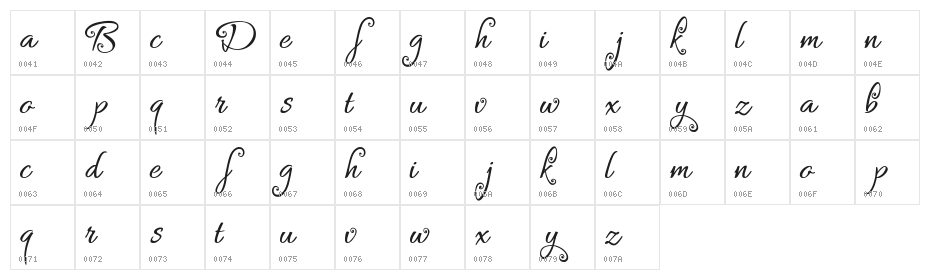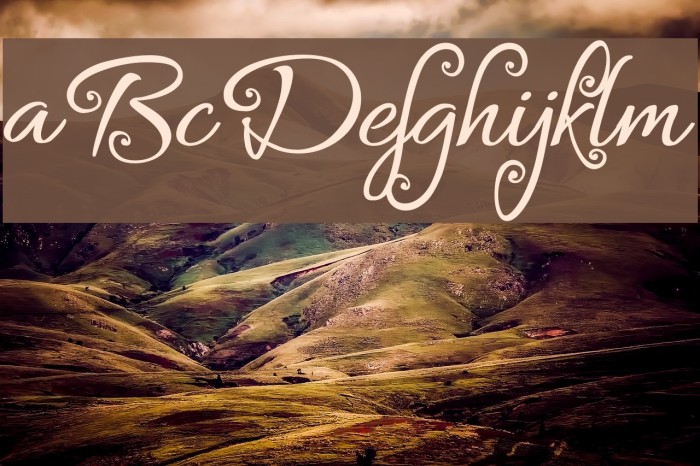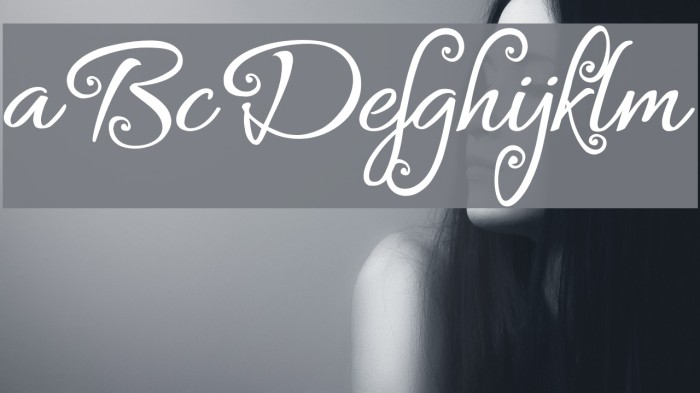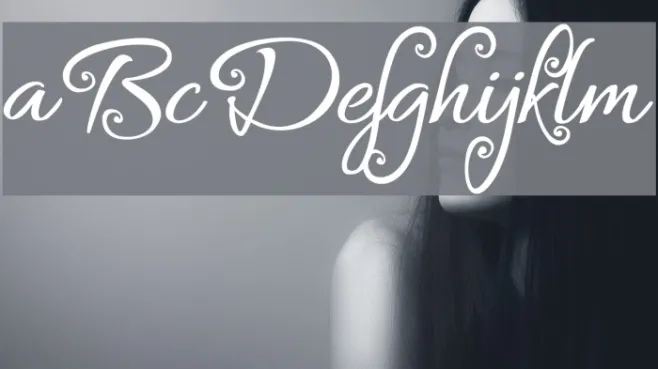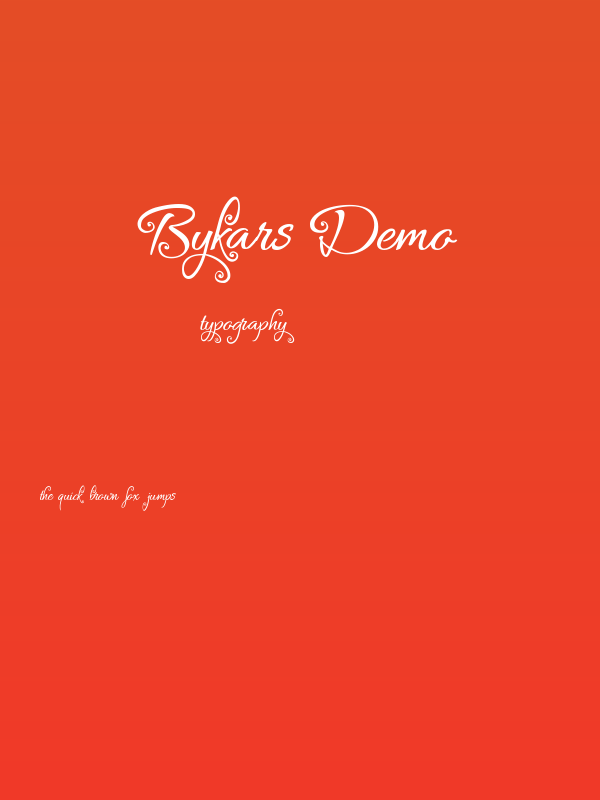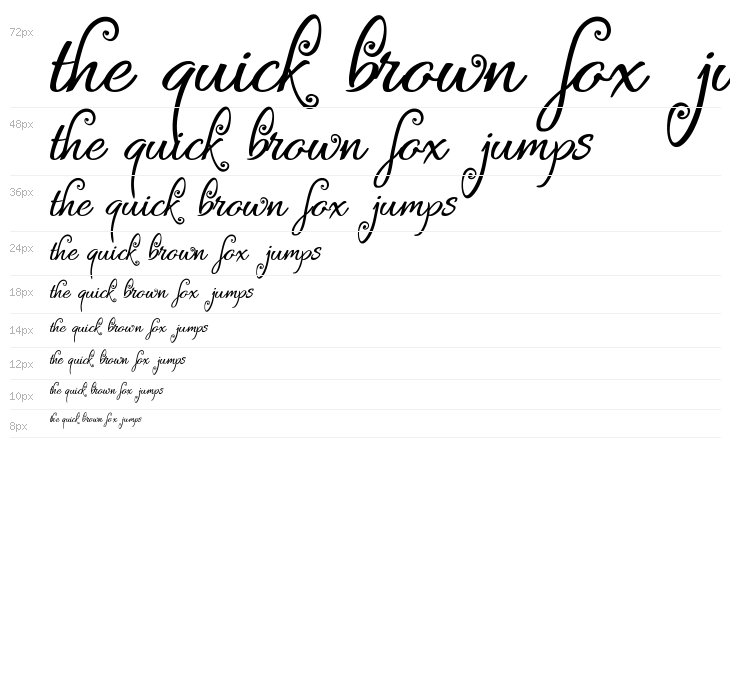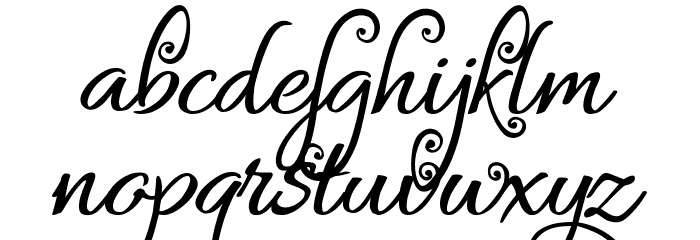
Bykars Demo Font
Bykars Demo Description
This font features an elegant and flowing script style, characterized by its ornate and decorative swirls. The uppercase letters are particularly elaborate, with intricate loops and flourishes that add a touch of sophistication and artistry. The lowercase letters maintain a consistent cursive style, providing a harmonious and fluid appearance. The font exudes a sense of elegance and grace, making it suitable for formal and decorative applications. The overall design is both classic and timeless, with a modern twist that enhances its visual appeal.
| Proposed Projects | Ideal for wedding invitations, elegant branding, greeting cards, and decorative signage. |